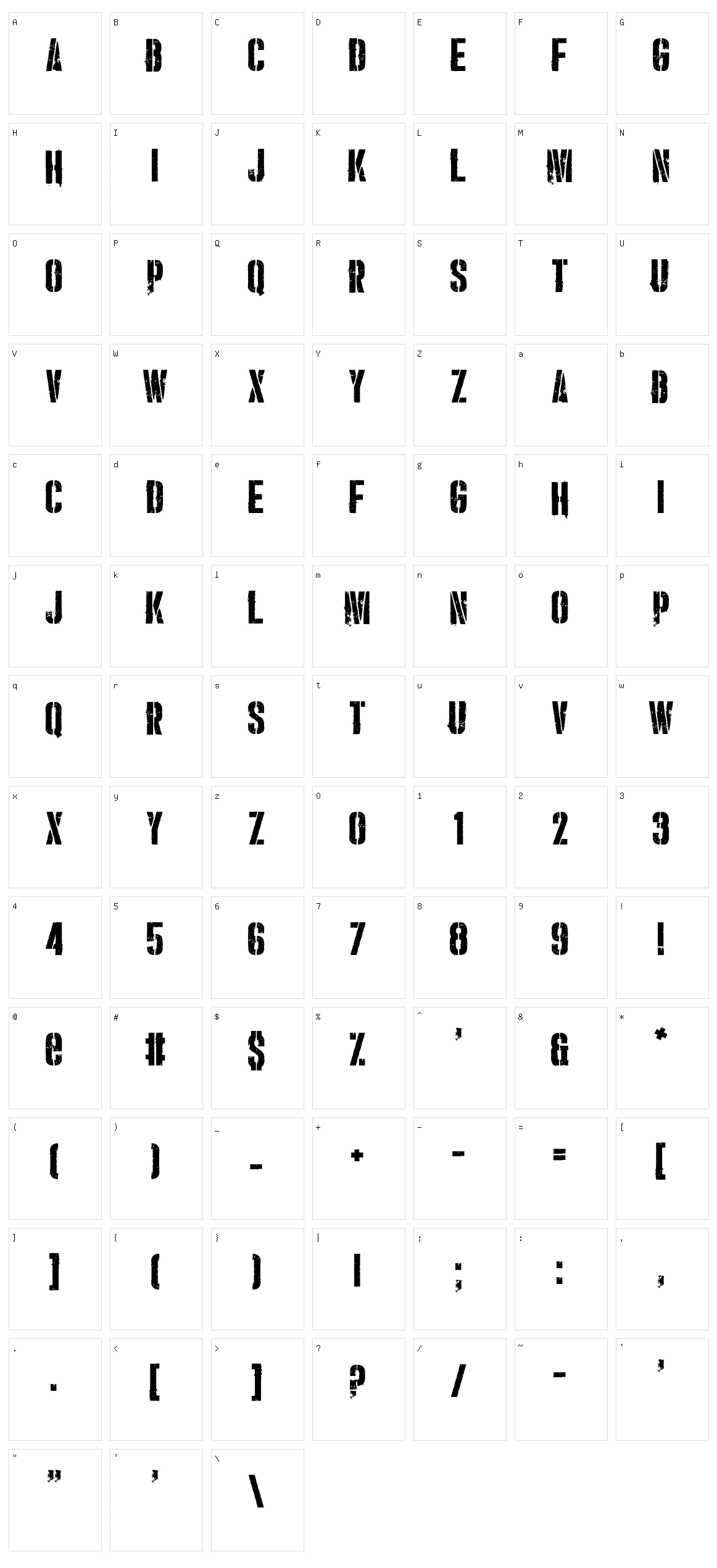
The free font Punishment is carefully designed by Chequered Ink, showcasing a thoughtful balance of creativity and usability and falls under the Stencil font style. When you download the ZIP file, it contains only 55.25 KB of font files, making it lightweight and quick to download. Please review the license details below to understand permitted usage and distribution rights. If license information is not available, we recommend using this font for personal projects only or contacting the author directly for commercial usage permissions.